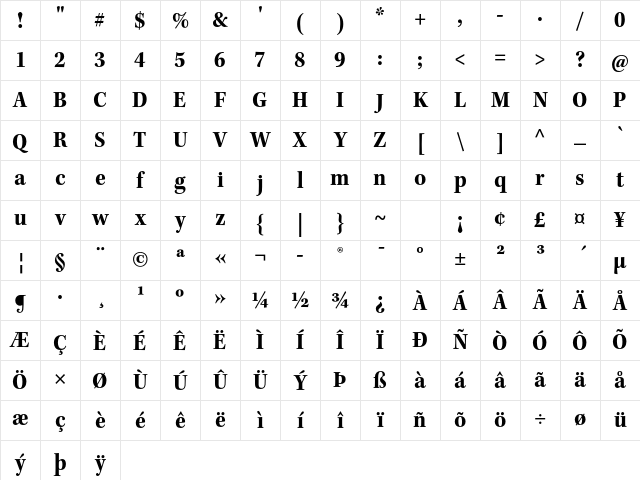
Kepler Std Bold Semicondensed
Style: Bold Semicondensed
Complete Kepler Std Bold Semicondensed glyph index. Displaying only characters natively supported by Kepler Std Bold Semicondensed font.
Design Context for Kepler Std
Kepler Std is a composed and adaptable typeface that performs quietly and consistently across a wide range of design contexts. Its bold stroke weight gives it real presence on the page. Its narrow stance lets it pack a punch even in space-constrained designs.